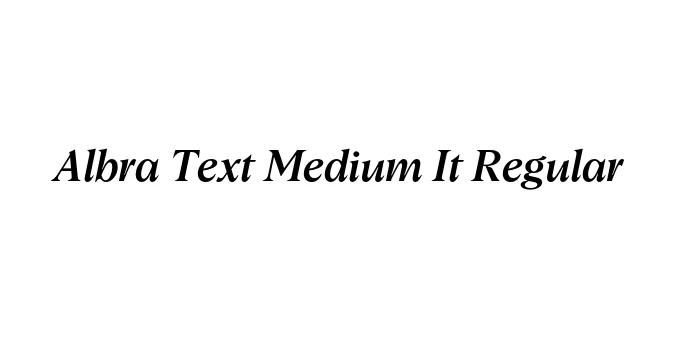
Albra Text Medium It Regular
Designed by BumBumType
Albra Text Medium It Regular is a sophisticated serif typeface that belongs to the wider Albra collection, a family known for its high-contrast strokes and timeless elegance. This particular weight is meticulously optimized for body text and smaller display sizes, ensuring that the intricate details and sharp serifs remain legible and visually pleasing across various mediums. The design aesthetic draws inspiration from classic transitional serifs while incorporating contemporary geometry to meet modern design standards.
The Medium Italic variant offers a graceful, rhythmic flow that adds character and emphasis without sacrificing readability. Its distinct teardrop terminals and precise kerning make it an exceptional choice for editorial layouts and luxury branding. By balancing vintage charm with functional clarity, Albra Text Medium It Regular has become a staple for designers looking to convey a sense of prestige and authority in their typographic work.
Albra Text Medium It Regular Best Uses
Highly effective for magazine layouts, journals, and long-form storytelling.
Perfect for creating elegant logos and sophisticated corporate stationery.
Adds a premium feel to body copy and pull quotes on high-end lifestyle websites.
Ideal for book typesetting, brochures, and luxury packaging designs.